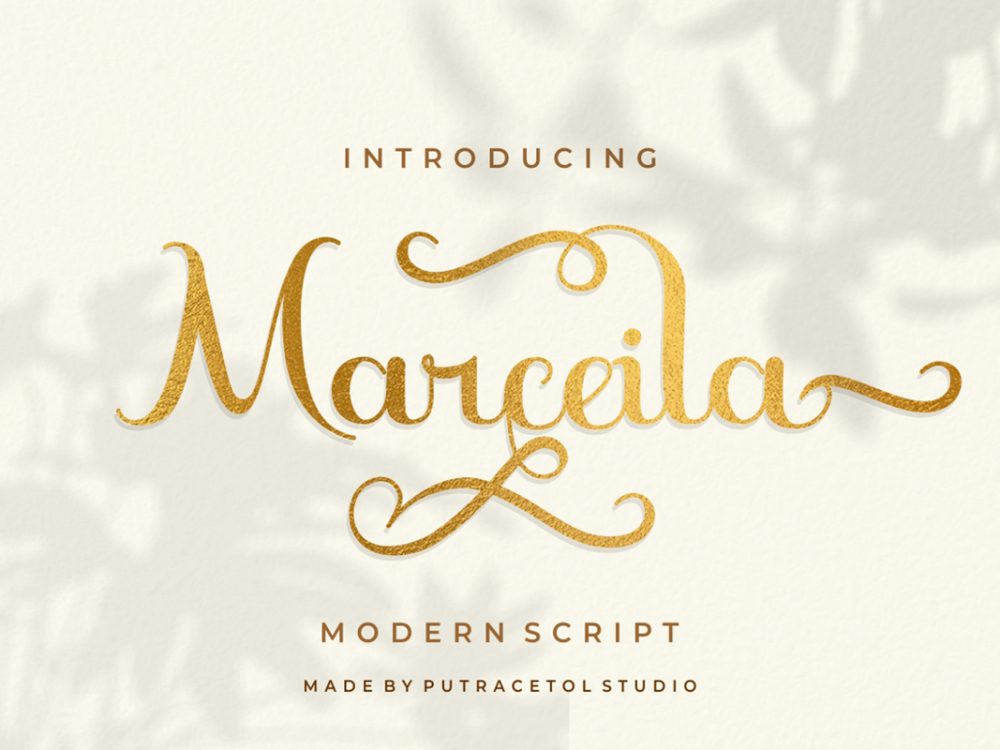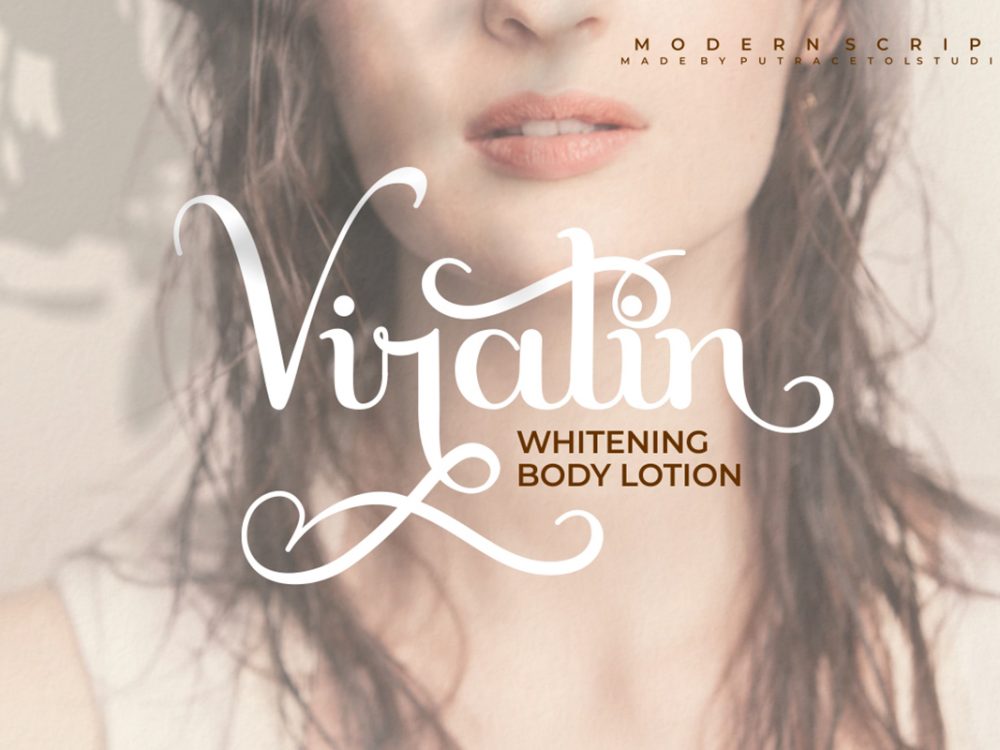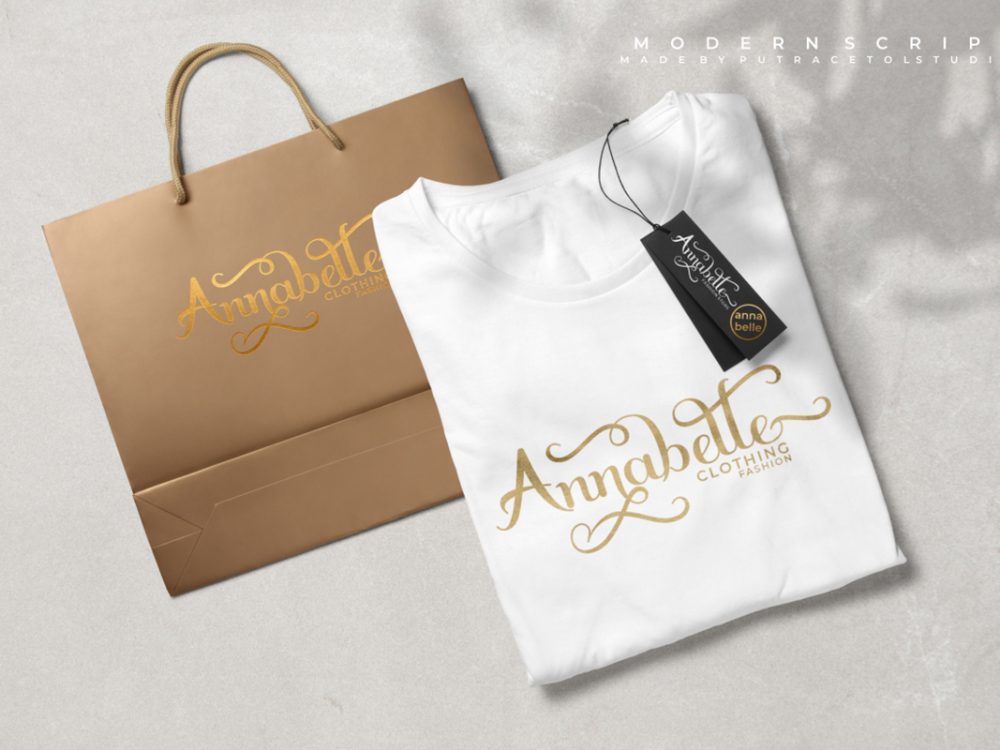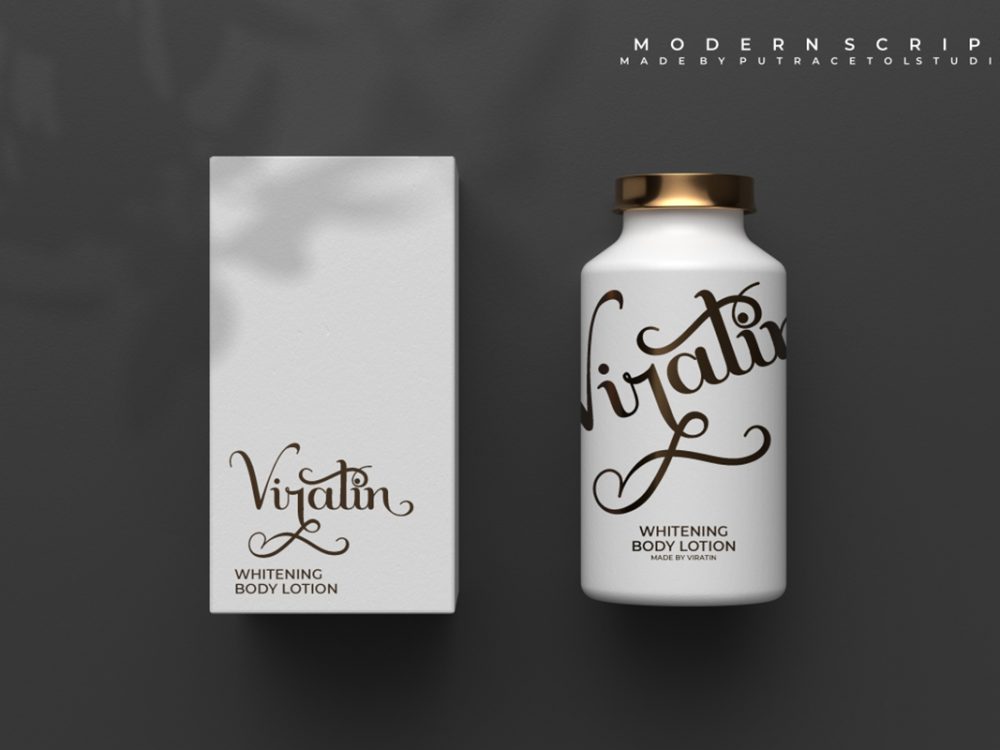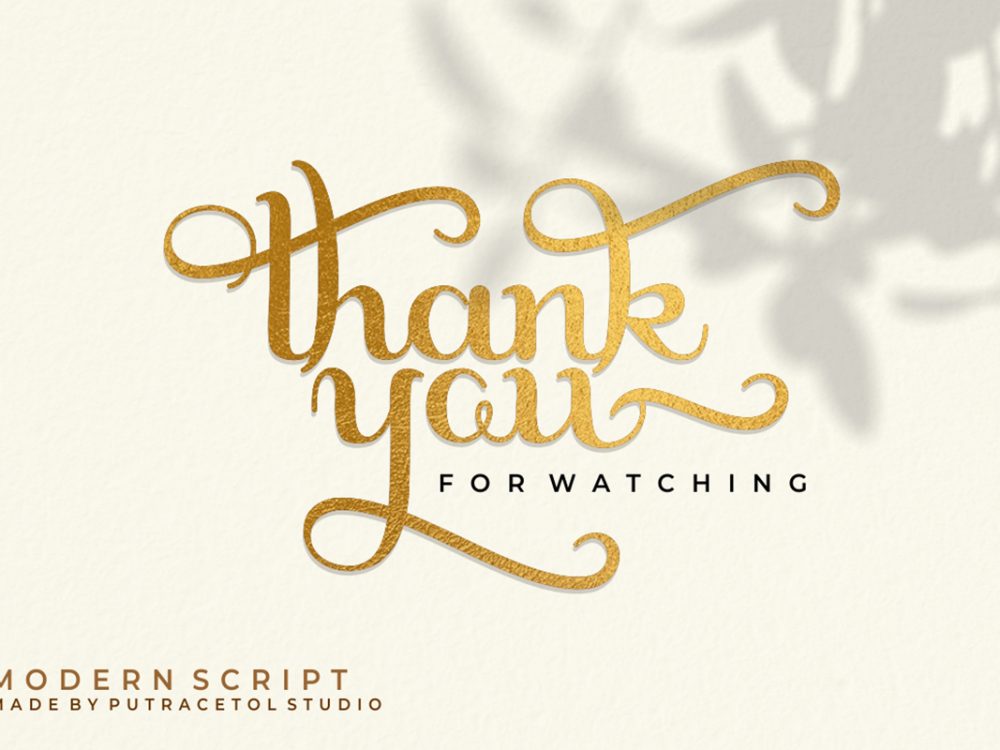
Marceila Free Font
Marceila Free Font is an interesting script typeface that stands out with its modern calligraphic style among other fonts. This font is very suitable for creating various projects that require a scripted handwritten font. Use this font to create memorable romantic posters, wedding invitations, greeting cards, branding, flyers, t-shirt and pillow prints, and more. If you like it don’t forget to check out the full version.